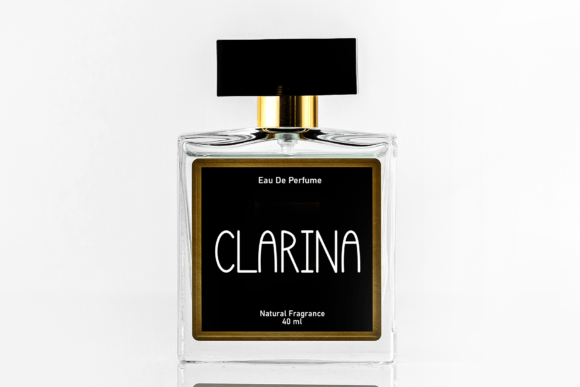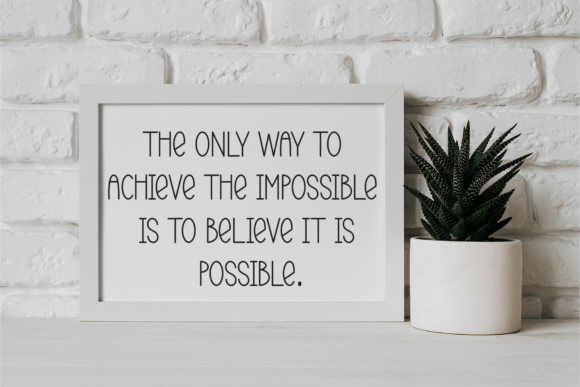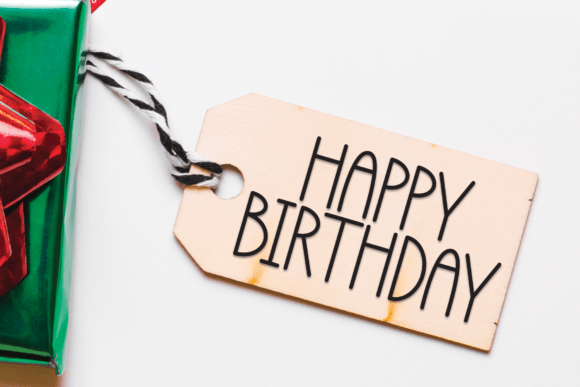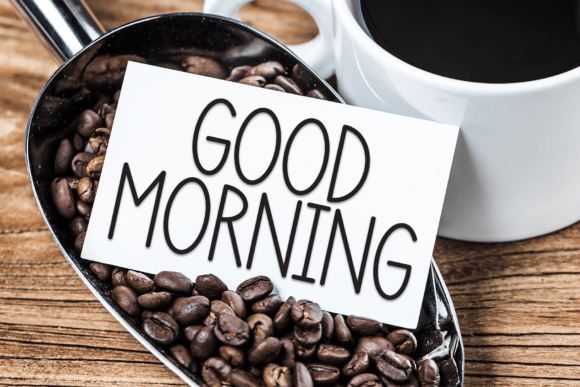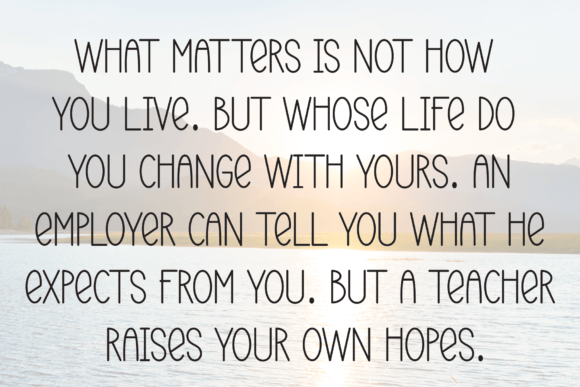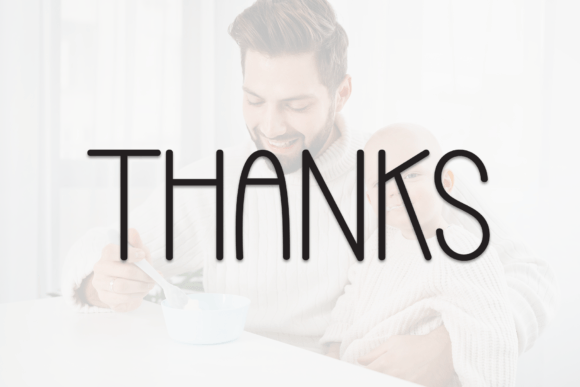
Hello Daddy Font: The Sweet and Friendly Handwritten Font for Your Creative Projects
Are you a designer, crafter, or DIY enthusiast looking for a font that can add a personal touch to your creative projects? Look no further than Hello Daddy Font, a sweet and friendly handwritten font that’s perfect for a wide range of designs. With its natural and unique style, Hello Daddy Font is incredibly versatile and can be used in various contexts, from crafting and scrapbooking to branding and advertising.
The Characteristics of Hello Daddy Font
Hello Daddy Font is a handwritten font that’s designed to look friendly, approachable, and downright sweet. Its natural and unique style makes it stand out from more traditional fonts, and its versatility ensures that it can be used in a variety of creative projects. Here are some of the key characteristics that make Hello Daddy Font so special:
- Handwritten style: Hello Daddy Font has a distinctly handwritten feel that’s perfect for adding a personal touch to your designs.
- Natural and unique: The font’s natural and unique style ensures that it stands out from more traditional fonts and adds a touch of personality to your designs.
- Versatile: Hello Daddy Font is incredibly versatile and can be used in a wide range of creative projects, from crafting and scrapbooking to branding and advertising.
Uses for Hello Daddy Font
So, what can you use Hello Daddy Font for? The answer is: almost anything! Here are some ideas to get you started:
- Crafting and scrapbooking: Hello Daddy Font is perfect for adding a personal touch to your scrapbooking and crafting projects. Use it to create titles, captions, and journaling pages that are both beautiful and meaningful.
- Branding and advertising: The font’s friendly and approachable style makes it perfect for use in branding and advertising projects. Use it to create logos, taglines, and ad copy that resonates with your target audience.
- Wedding and party decor: Hello Daddy Font is a great choice for wedding and party decor projects. Use it to create beautiful wedding invitations, party banners, and other decorative elements that set the tone for your special event.
- Social media graphics: The font’s playful and informal style makes it perfect for use in social media graphics. Use it to create engaging and shareable graphics that help you connect with your followers.
Tips for Using Hello Daddy Font
Here are some tips for getting the most out of Hello Daddy Font:
- Use it in combination with other fonts: Hello Daddy Font pairs well with a variety of other fonts, so don’t be afraid to experiment with different combinations. Try pairing it with a bold sans-serif font for a striking contrast.
- Experiment with different colors: The font’s natural and unique style looks great in a variety of colors. Try experimenting with different colors and color combinations to find the one that works best for your project.
- Don’t be afraid to get creative: Hello Daddy Font is a versatile font that can be used in a wide range of creative projects. Don’t be afraid to think outside the box and come up with unique and innovative ways to use it.
Hello Daddy Font is a sweet and friendly handwritten font that’s perfect for designers, crafters, and DIY enthusiasts. Its natural and unique style makes it incredibly versatile, and its friendly and approachable tone ensures that it resonates with audiences of all ages. Whether you’re working on a crafting project, a branding campaign, or a social media graphic, Hello Daddy Font is a great choice. So why wait? Download Hello Daddy Font today and start creating beautiful, engaging designs that capture the hearts of your audience!